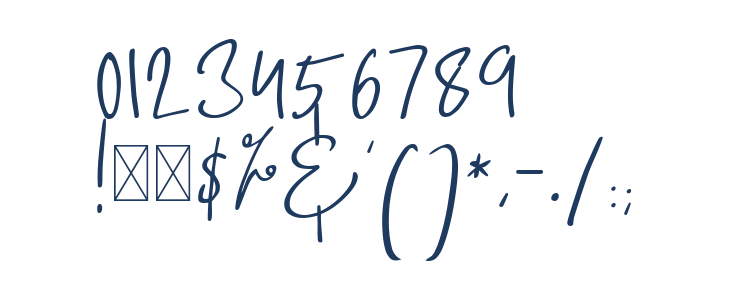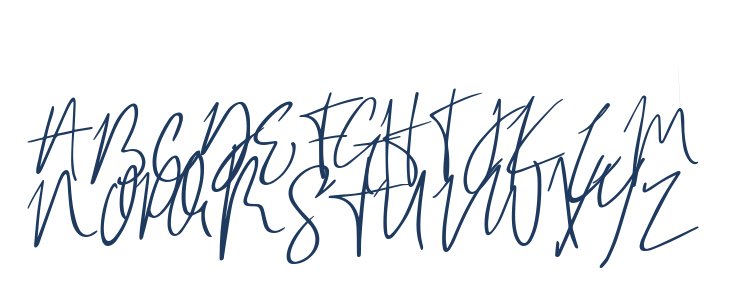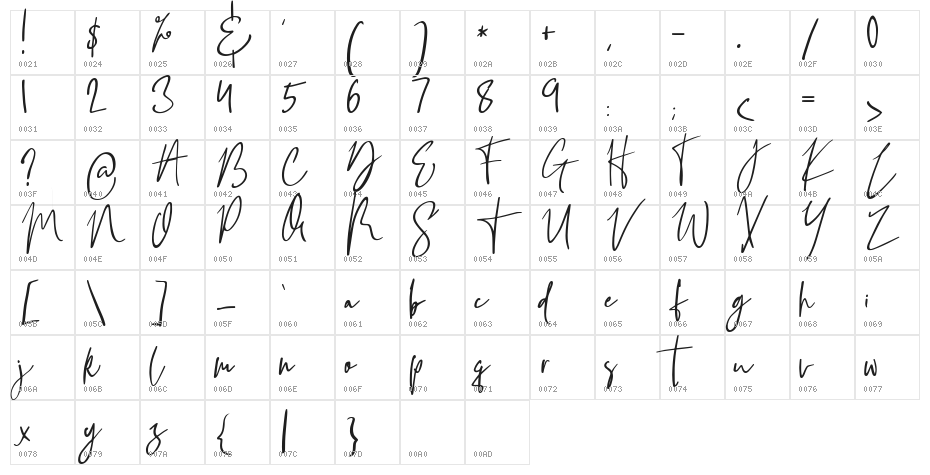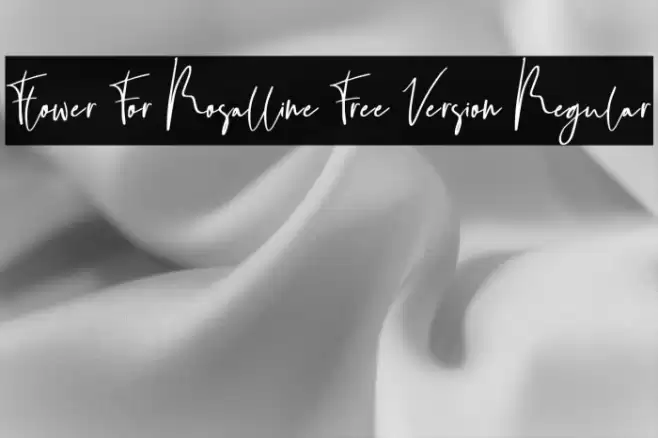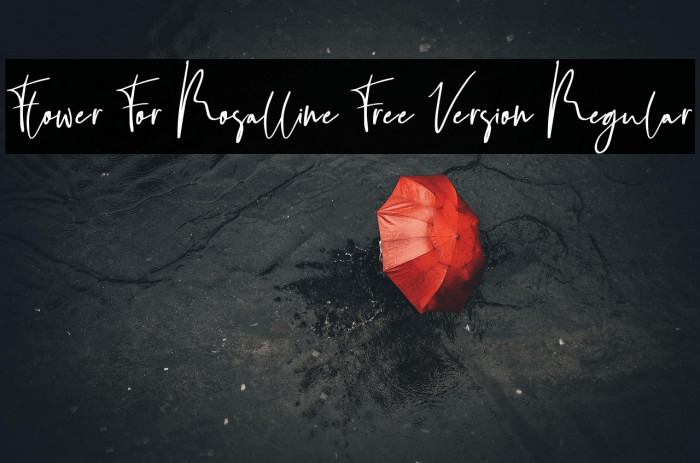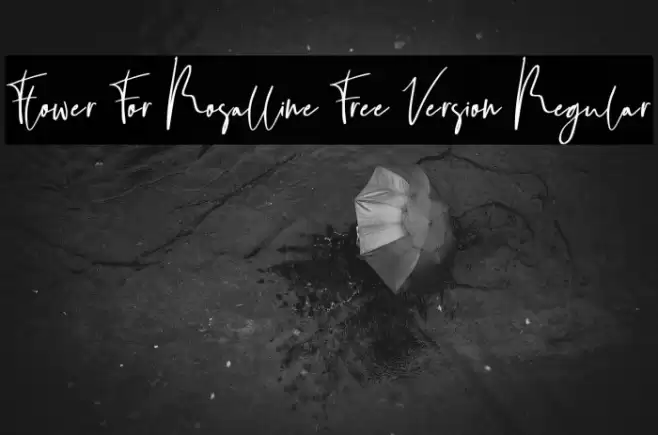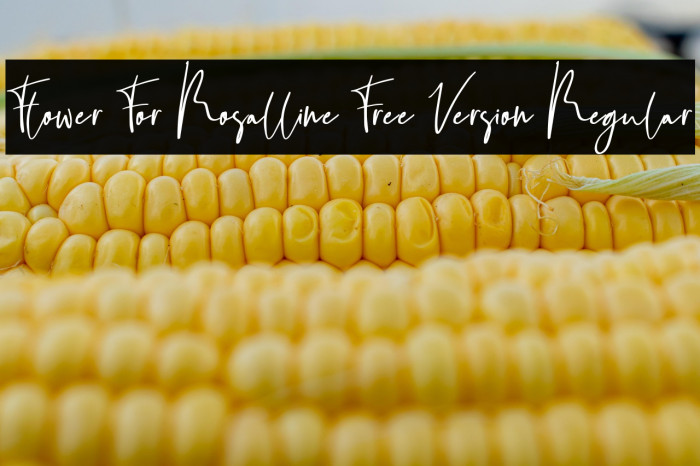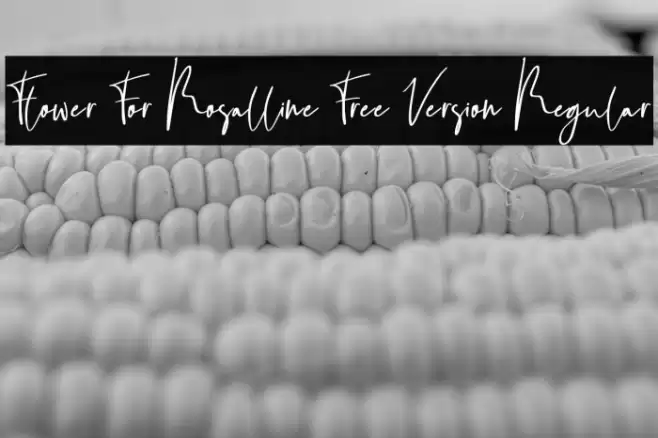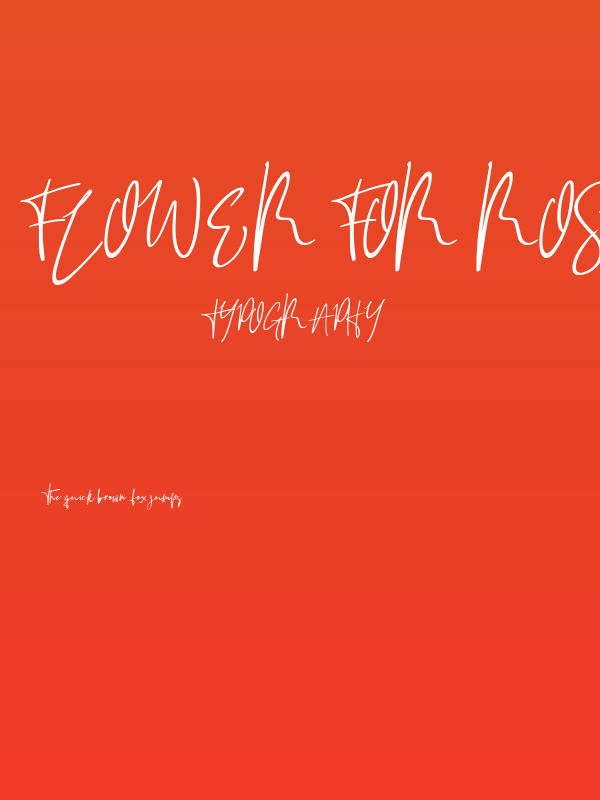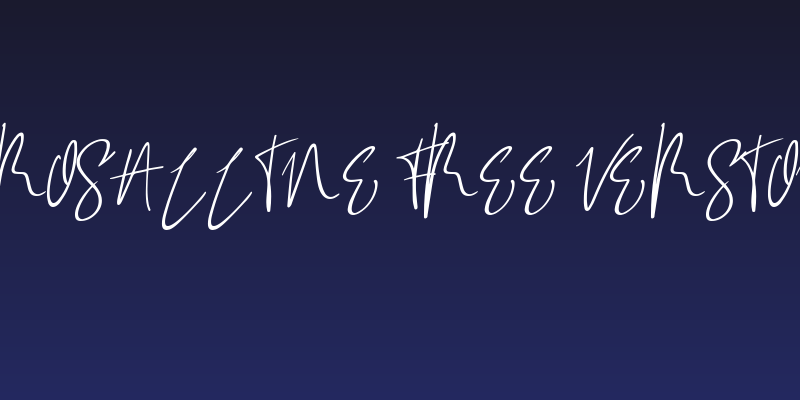
Flower For Rosalline Free Version Regular Font
Flower For Rosalline Free Version Regular Description
A handwritten, cursive script font with a casual and flowing style, featuring varying stroke widths and a slightly playful appearance.
| Overall Style | Casual, Handwritten, Playful |
| Use Case | Invitations, Greeting Cards, Personal Branding, Logos, Creative Projects |